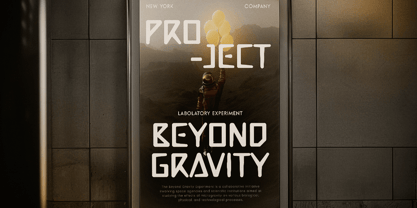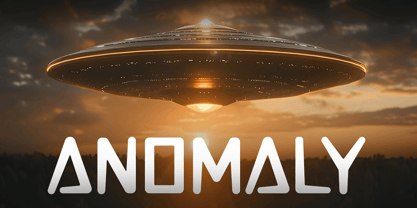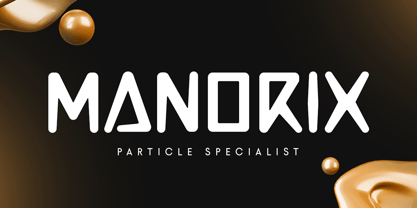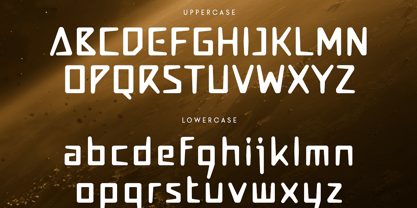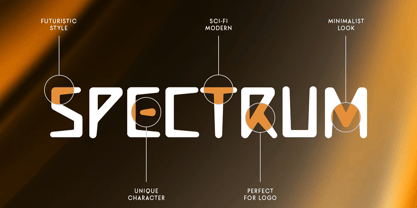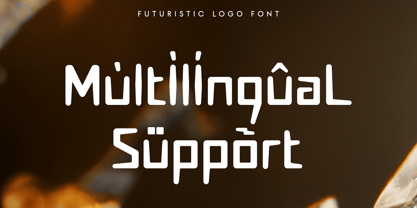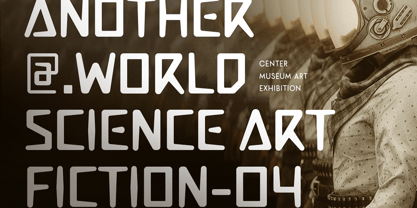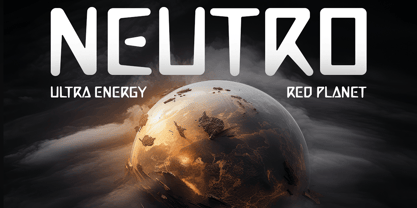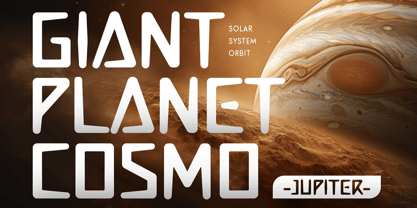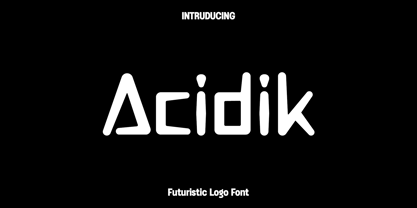
Acidik
Die Schriftfamilie Acidik wurde von Olivia Love entworfen und von Only Fonts veröffentlicht. Acidik enthält 1 Stile. Mehr über diese Familie
Acidik – Futuristic Logo Font Acidik is a cutting-edge logo font designed for creators aiming to establish bold, innovative, and memorable brand identities. Drawing inspiration from advanced technology, digital architecture, cyber aesthetics, and modern geometric design, Acidik showcases sharp letterforms and a sleek futuristic appearance that effectively conveys innovation and progress. Each character is meticulously crafted to ensure a professional, high-impact look while maintaining excellent readability across a diverse range of creative applications. Ideal for technology startups, AI companies, software brands, gaming studios, esports teams, mobile applications, digital products, robotics, automotive projects, websites, movie titles, and futuristic branding, Acidik elevates ordinary typography into a striking visual statement. Its modern geometric style produces powerful headlines and distinctive logos that capture attention in both print and digital media. Designed with versatility in mind, Acidik incorporates OpenType features and thoughtfully crafted alternative characters, offering greater creative freedom for custom branding and logo development. Whether you are launching a next-generation tech company, creating a gaming platform, or designing futuristic marketing materials, Acidik provides the precision, confidence, and contemporary style necessary to leave a lasting impression. With its clean lines, bold personality, and premium craftsmanship, Acidik is an essential typeface for designers seeking modern typography that embodies technology, innovation, and forward-thinking creativity. Acidik Font Features: • Futuristic logo style • Modern geometric characters • Uppercase and lowercase letters • Numerals, punctuation, and symbols • OpenType features • Multilingual support • Perfect for technology, gaming, startups, AI, software, branding, and digital products • Suitable for both print and digital projects